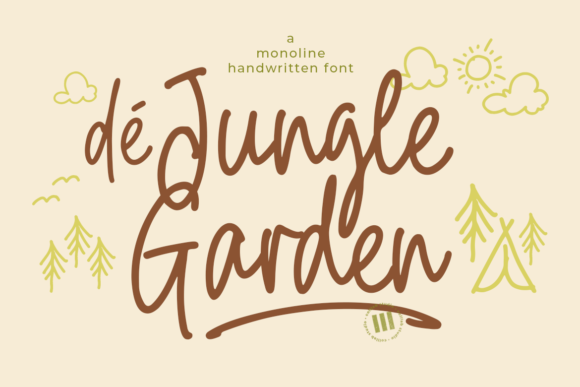
Feast your eyes on De Jungle Garden Font, a culinary delight for your designs!
Indulge in the sweet and scrumptious flavors of this handwritten script font. Its every letter is a tantalizing morsel, calligraphed with a hint of sloppiness that adds a touch of playful authenticity.
Picture your logo adorned with this delectable font, inviting customers to savor the flavors of your culinary creations. Or entice them with tantalizing quotes and branding that leaves a lasting impression.
With De Jungle Garden Font, your designs will blossom into a luscious garden of visual delights. Its unique and captivating touch will captivate your audience, leaving them hungry for more.
Don't resist the temptation to sprinkle this font into your designs and watch them transform into mouthwatering masterpieces. Download De Jungle Garden Font today and let your creativity feast on its delicious possibilities!